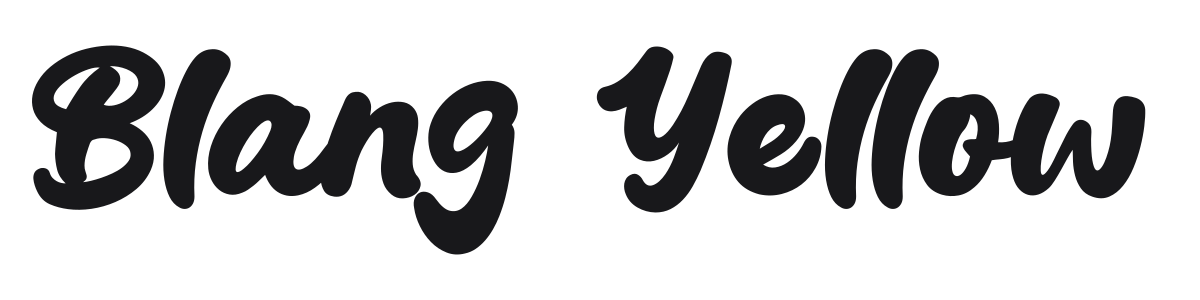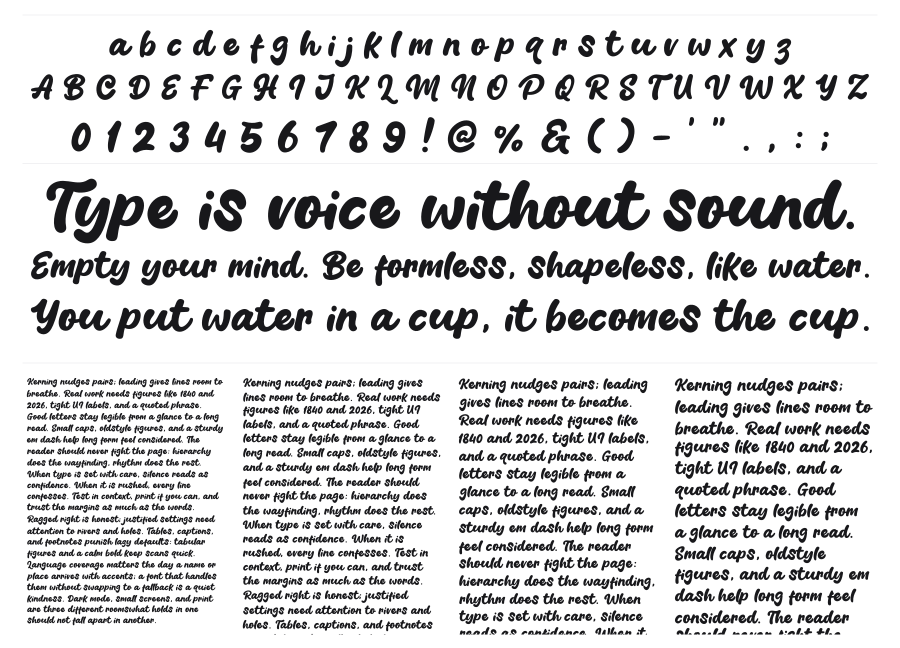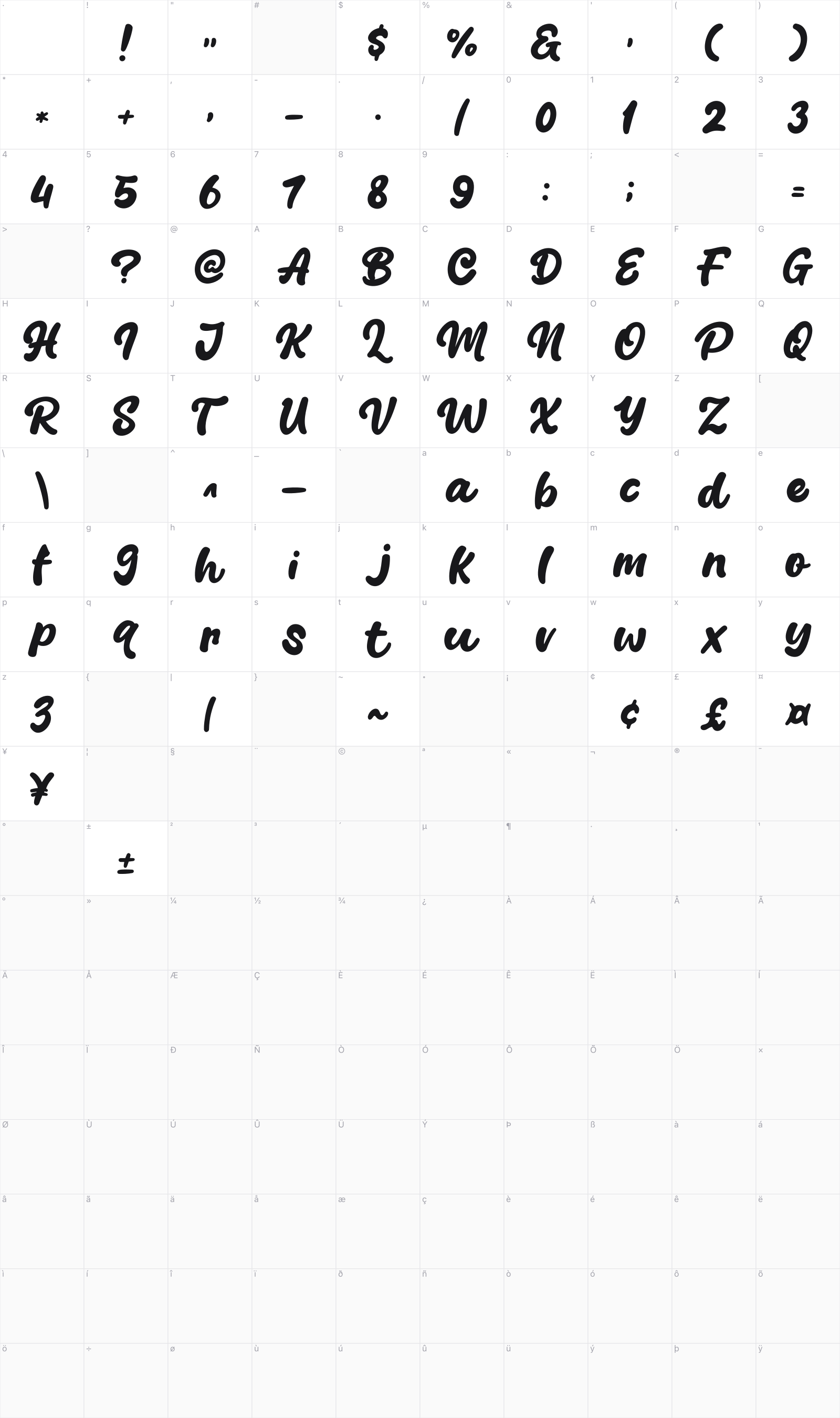
Blang Yellow
Blang Yellow is a bold casual brush script with thick, rounded strokes and free-flowing connections between letters. It draws from hand-lettered brush traditions but reads as thoroughly contemporary, carrying the kind of loose energy you'd expect from a label or a poster. The heavy weight and irregular rhythm give it personality without tipping into chaos.